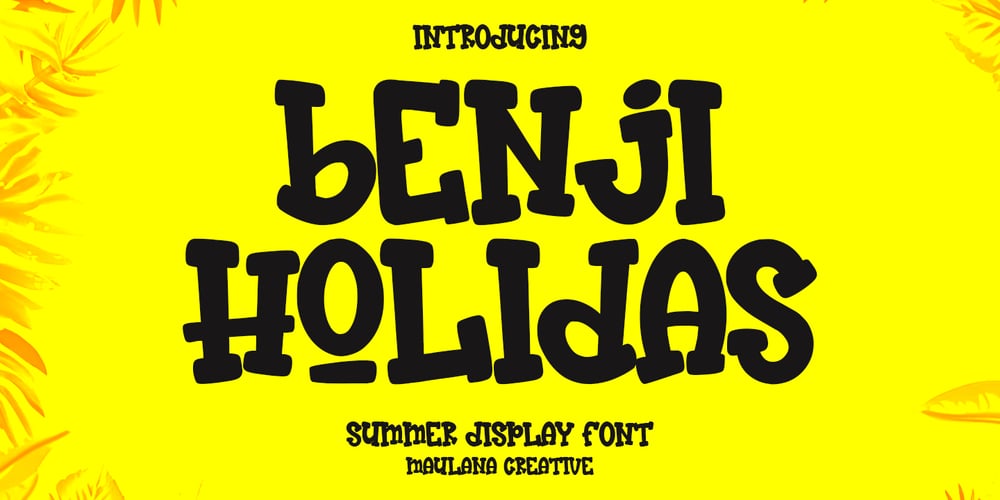
MC Benji Holidas Font Family was designed by Gilang Maulana and published by Maulana Creative. MC Benji Holidas contains 1 styles and family package options. Benji Holidas summer display font. Heavy stroke, fun character with a bit of ligatures. To give you an extra creative work. Benji Holidas summer display font support multilingual more than 100+ language. This font is good for logo design, Social media, Movie Titles, Books Titles, a short text even a long text letter and good for your secondary text font with script or serif. Make a stunning work with Benji Holidas summer display font. Cheers, Maulana Creative